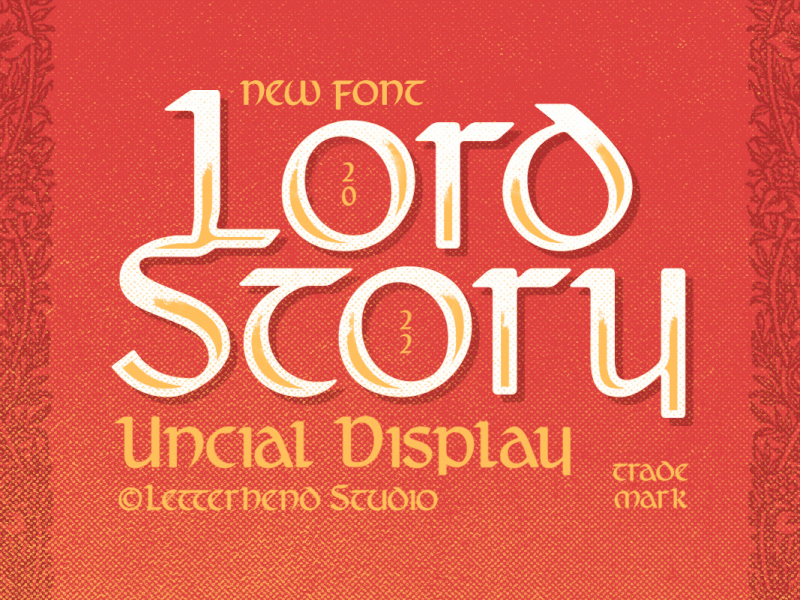
Lord Story - Medieval Font
Lord Story is a great display font with medieval middle age theme. This font is also suitable to be applied especially in logo, and the other various formal forms such as invitations, labels, logos, magazines, books, greeting / wedding cards, packaging, fashion, make up, stationery, novels, labels or any type of advertising purpose.
uppercase & lowercase
numbers and punctuation
multilingual
alternates & ligatures